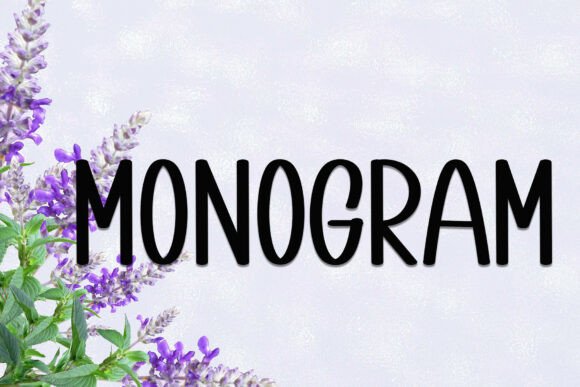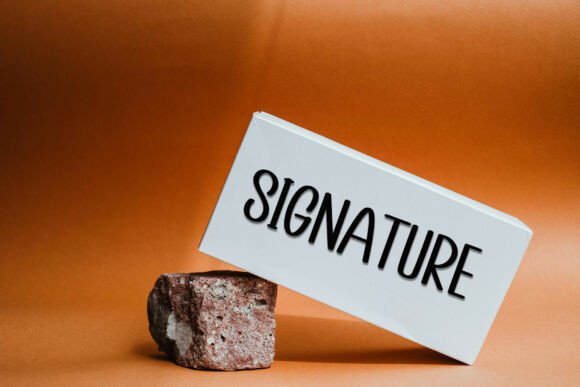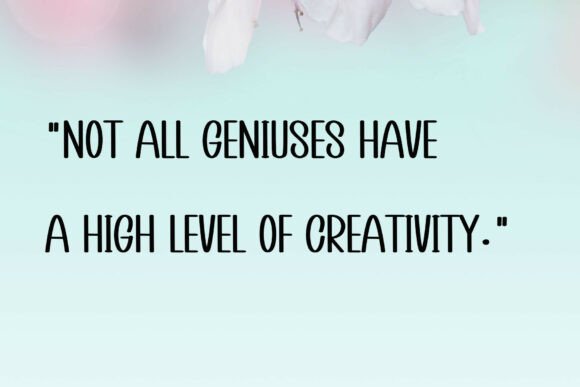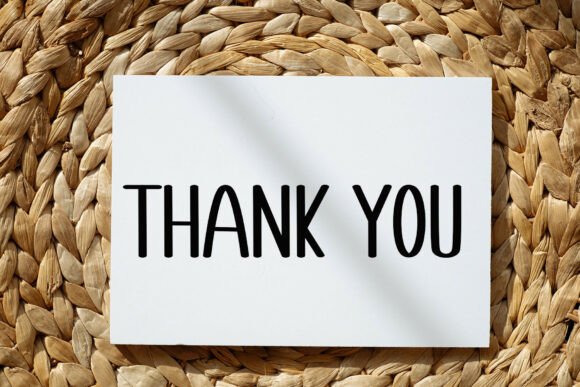
Cakemilk Font: The Perfect Blend of Modern Minimalism and Playful Charm
In the world of typography, fonts play a crucial role in conveying the tone and personality of a brand. For designers and crafters looking for a unique and captivating font, Cakemilk Font is an excellent choice. This modern, minimalist font delivers a sweet yet striking tone with its tall, narrow letterforms and rounded terminals, making it perfect for a wide range of design applications.
A Modern, Minimalist Vibe
The Cakemilk font boasts a distinctive design that combines clean geometry with a playful uprightness. Its tall, narrow letterforms give it a sleek and modern appearance, while the rounded terminals add a touch of softness and approachability. This font is ideal for designers who want to create a contemporary and sophisticated look without sacrificing legibility.
One of the standout features of Cakemilk Font is its slightly exaggerated vertical stretch and even stroke weight. This design choice enhances the font’s legibility, making it perfect for use in food packaging, social media posts, and lifestyle branding. The font’s clean lines and simple geometry ensure that it remains clear and readable, even at smaller sizes.
A Balance of Fun and Order
While Cakemilk Font leans toward simplicity, its charm lies in the subtle humanist touch seen in characters like “A” and “K.” These letters soften the font’s otherwise structured presence, adding a touch of playfulness and whimsy. This balance of fun and order makes Cakemilk Font an excellent choice for creatives looking for a font that is both quirky and structured.
The font’s playful uprightness and rounded terminals give it a friendly and approachable feel, making it perfect for use in designs that require a touch of personality. At the same time, its clean geometry and even stroke weight ensure that it remains professional and legible, making it suitable for use in a wide range of design applications.
Design Applications
Cakemilk Font is a versatile font that can be used in a variety of design applications. Its modern, minimalist vibe makes it perfect for use in:
- Food packaging: The font’s clean lines and simple geometry make it perfect for use in food packaging, where clarity and legibility are essential.
- Social media posts: The font’s playful uprightness and rounded terminals make it perfect for use in social media posts, where a touch of personality and whimsy can help to engage audiences.
- Lifestyle branding: The font’s balance of fun and order makes it perfect for use in lifestyle branding, where a modern and sophisticated look is essential.
Why Choose Cakemilk Font?
- Unique and captivating design: Cakemilk Font boasts a distinctive design that is both modern and playful.
- Excellent legibility: The font’s clean lines, simple geometry, and even stroke weight ensure that it remains clear and readable, even at smaller sizes.
- Versatile: Cakemilk Font can be used in a wide range of design applications, from food packaging to social media posts and lifestyle branding.
In conclusion, Cakemilk Font is an excellent choice for designers and crafters looking for a modern, minimalist font with a playful touch. Its unique and captivating design, excellent legibility, and versatility make it perfect for use in a wide range of design applications. Whether you’re looking to create a sophisticated and modern look or a playful and whimsical one, Cakemilk Font is sure to deliver.